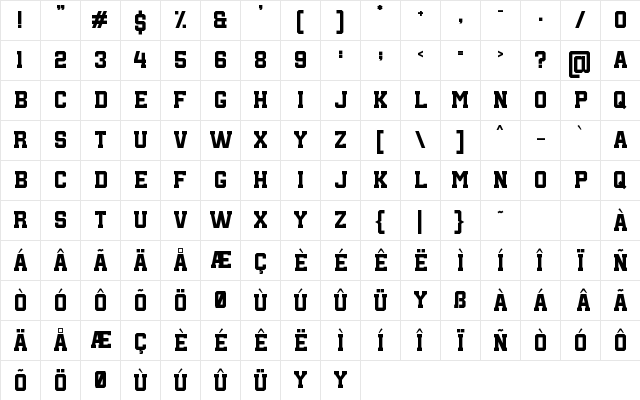
DESPORM Regular
Designer: Maikohatta
Design Context for DESPORM
DESPORM is a composed and adaptable typeface that performs quietly and consistently across a wide range of design contexts.